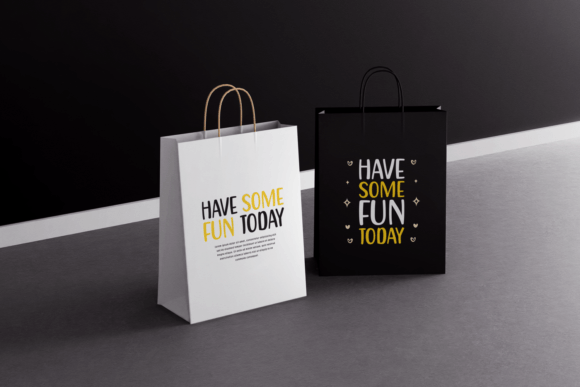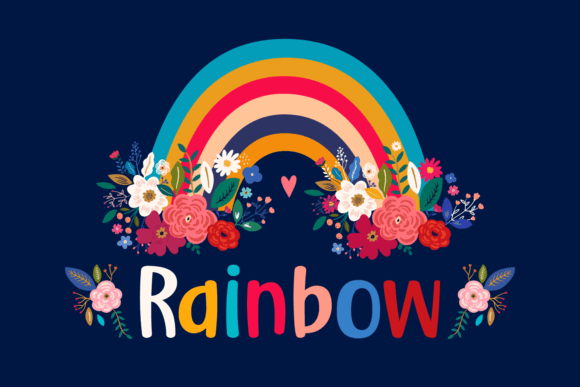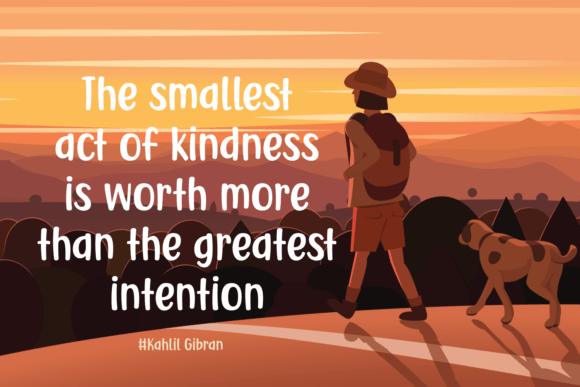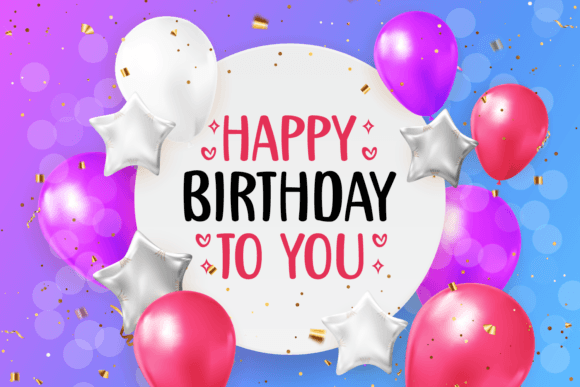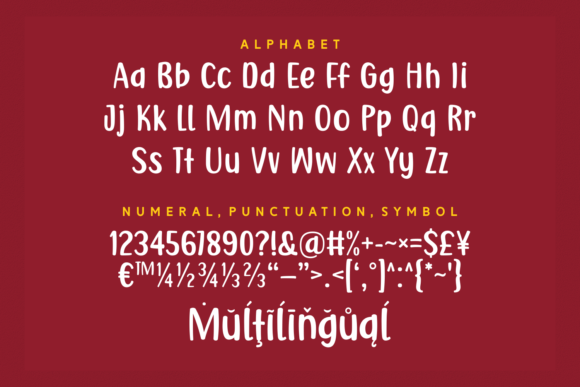
The Magical Font That Stole My Heart: Amazing Magical
I’ll never forget the moment I stumbled upon the perfect font for a whimsical craft project I was working on. I had been searching for what felt like hours, trying out font after font, but nothing seemed quite right. That was until I discovered Amazing Magical, a cute and lovely handwritten font that instantly captured my heart. In this article, I’ll share my experience with this beautiful typeface, its features, and how you can make the most of it in your next creative project.
An Honest Review of Amazing Magical
- ✨ Adorable and Friendly Look: Amazing Magical has a unique, handcrafted feel that adds a touch of warmth and personality to any design.
- ✅ Versatility: This font is perfect for a wide range of projects, from crafting and scrapbooking to digital graphics and branding.
- 💫 Extra Glyphs: The inclusion of extra star and heart glyphs allows for endless creative possibilities and beautiful typography.
While Amazing Magical is a wonderful font, there are a few minor things to keep in mind:
- 🤔 Limited Formality: As a handwritten font, Amazing Magical may not be the best choice for very formal or professional projects.
- ⚠️ Legibility at Small Sizes: Like many script fonts, Amazing Magical may become less legible at very small sizes, so it’s best used at larger sizes or for headlines.
- Experiment with the extra glyphs, such as stars and hearts, to add a personal touch.
- Access OpenType features, including glyphs and stylistic alternates, to enhance your typography.
The Backstory of Amazing Magical
While the origins of Amazing Magical might be shrouded in mystery, it’s easy to imagine a designer with a passion for whimsy and creativity crafting this font. Perhaps they wanted to create a typeface that would bring joy and a personal touch to designs, making Amazing Magical a labor of love.
A: Absolutely! Amazing Magical’s friendly and approachable look makes it an excellent choice for branding, especially for lifestyle, creative, or small business projects.
A: Yes, Amazing Magical comes with extra glyphs such as stars and hearts, allowing you to create more decorative and personalized typography.
A: Like many script fonts, Amazing Magical may lose legibility at very small sizes. It’s best used for headlines or at larger sizes to maximize its impact and readability.